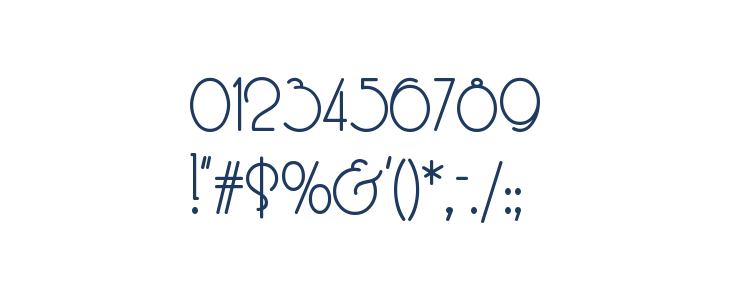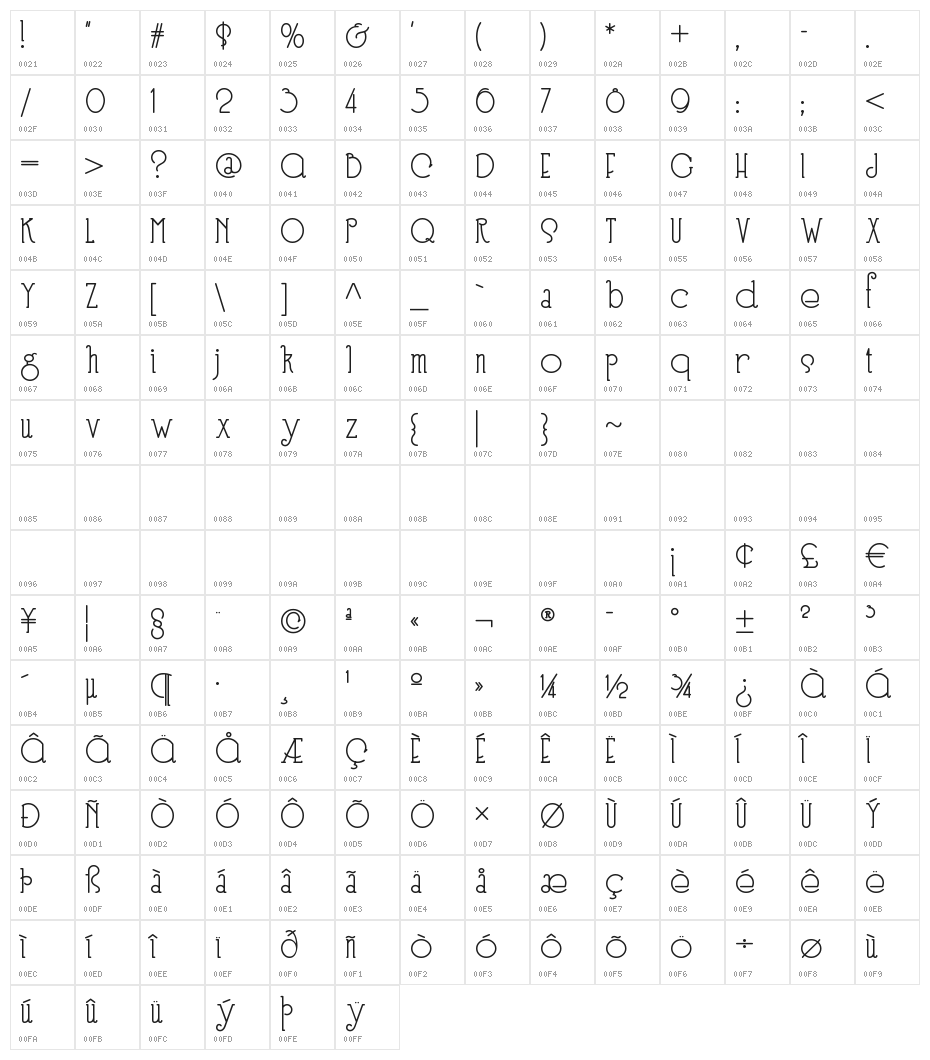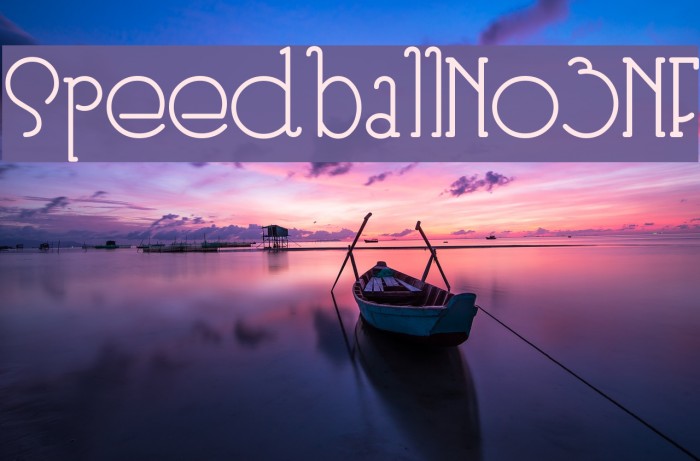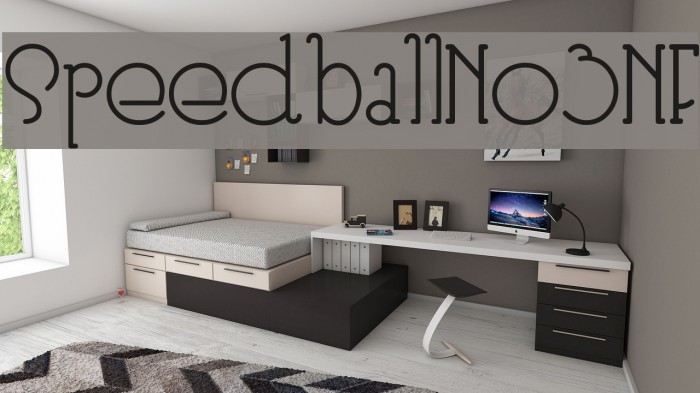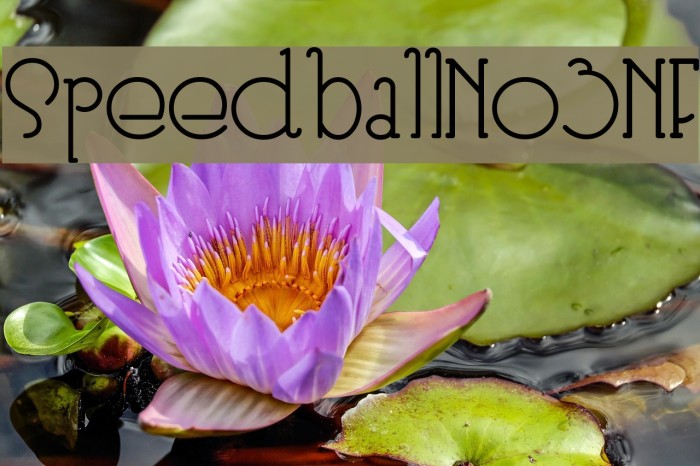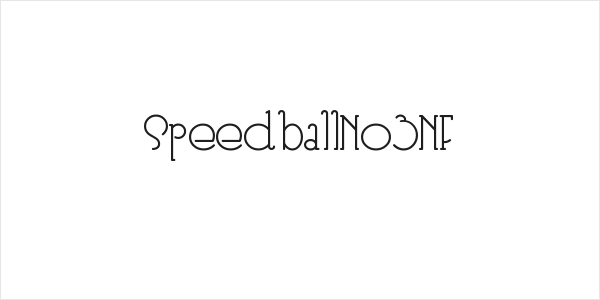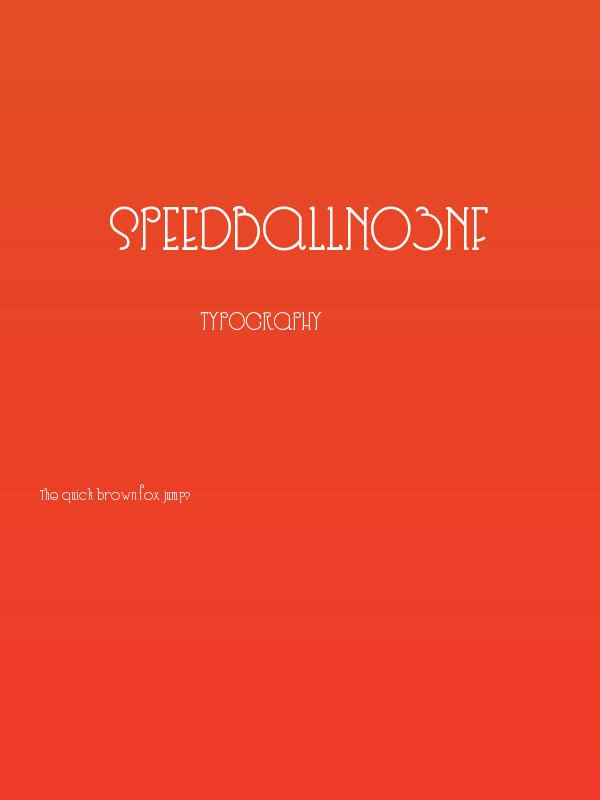
SpeedballNo3NF Font
✎ Art Deco
SpeedballNo3NF Description
This font features a unique blend of elegance and playfulness, characterized by its thin, elongated strokes and subtle curves. The uppercase letters exhibit a distinct art deco influence, with geometric shapes and a slight flair at the terminals. The lowercase letters maintain a consistent style, with rounded forms and a whimsical touch that adds personality. Numbers and special characters follow the same design principles, ensuring a cohesive look across all elements. The font's overall appearance is both sophisticated and approachable, making it versatile for various design applications.
| Use Case | Logos, Invitations, Posters |
| Proposed Projects | Ideal for branding, invitations, posters, and any project requiring a touch of elegance and creativity. |